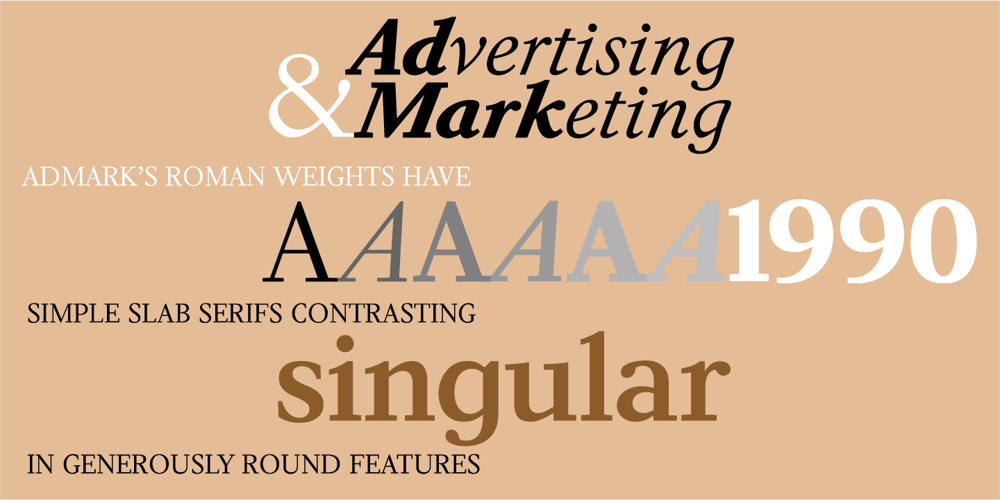
Admark
Admark font
Admark Font Family was designed by Adrian Williams and published by Club Type. Admark contains 6 styles and family package options. Advertising and Marketing often calls for the use of neutral typestyles; conveying a quiet but clear message with little stress and an even color on the page. Admarks’ roman weights have simple slab serifs contrasting with generously rounded features. Italics provide a sharp emphasis, still keeping the delicate use of stress combined with contrast.